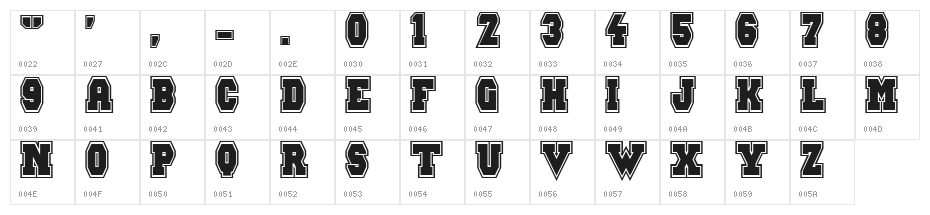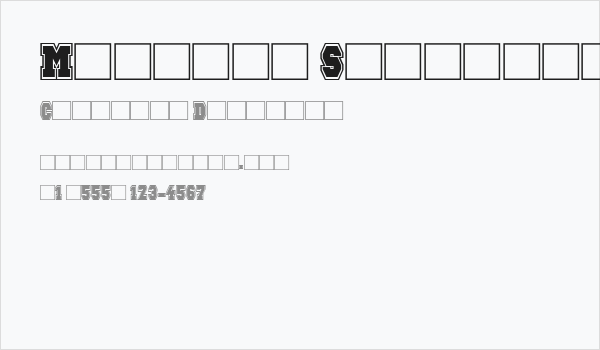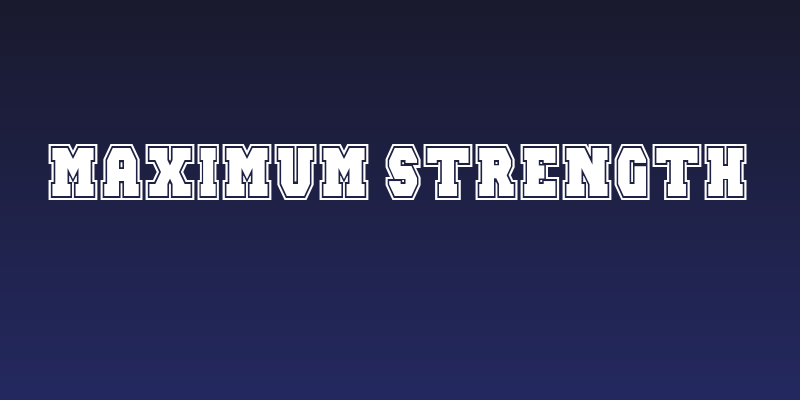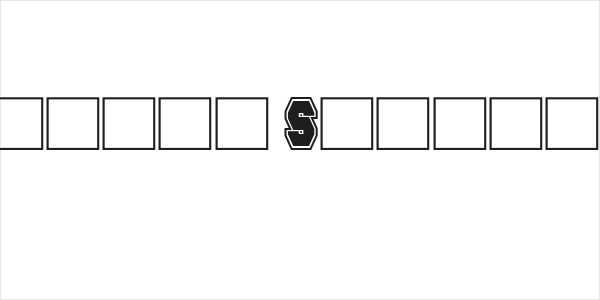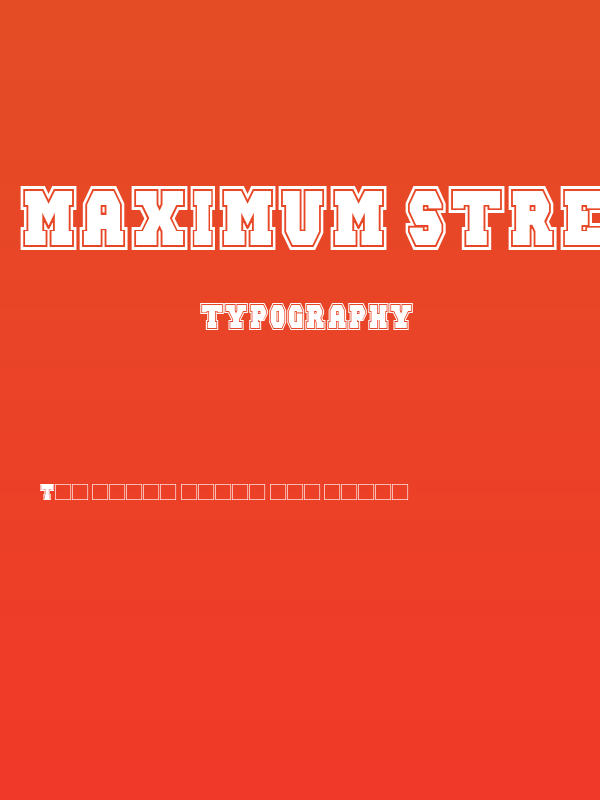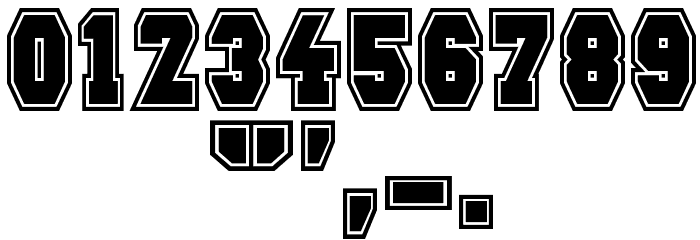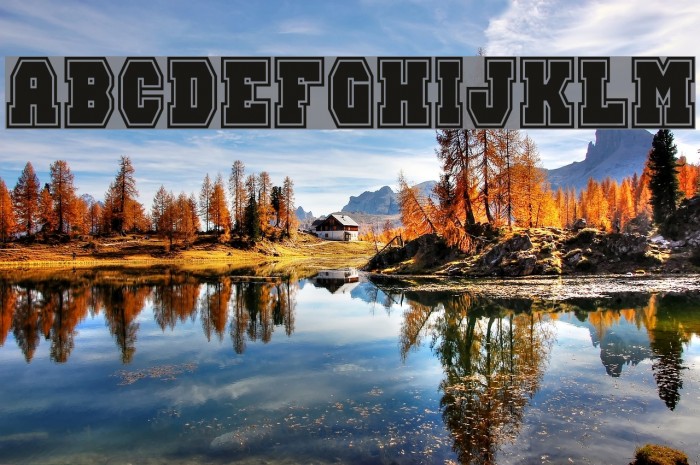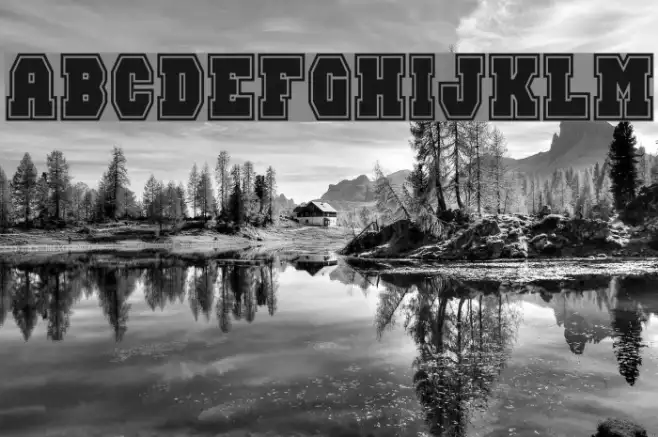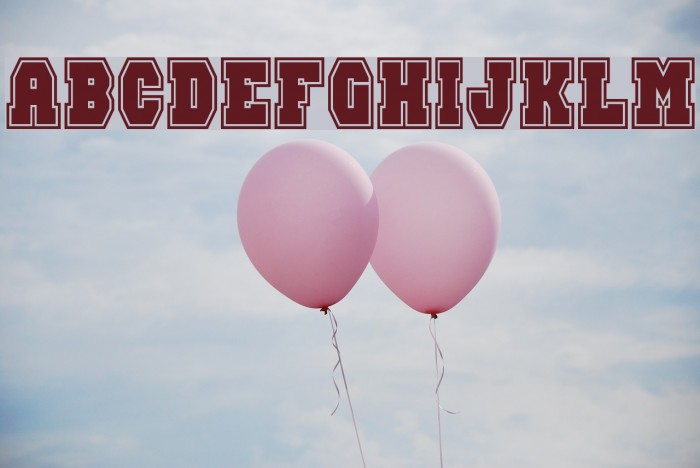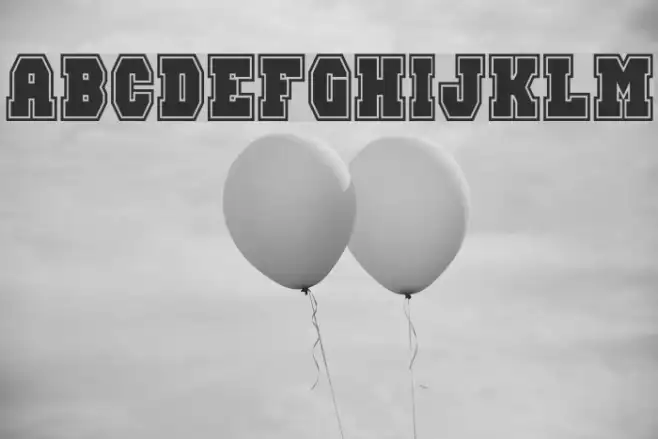
Maximum Strength Font
Maximum Strength Description
This font is a bold, decorative typeface with a strong, impactful presence. Each character is outlined with a thick border, giving it a three-dimensional appearance. The letters are uppercase and feature a blocky, geometric style that conveys strength and stability. The numbers and special characters follow the same design principles, ensuring consistency across all elements. The font's boldness and unique style make it ideal for attention-grabbing headlines or titles. Its distinct look is reminiscent of sports team logos or collegiate branding, making it suitable for projects that require a sense of power and authority.
| Proposed Projects | Ideal for sports team logos, collegiate branding, posters, and attention-grabbing headlines. |